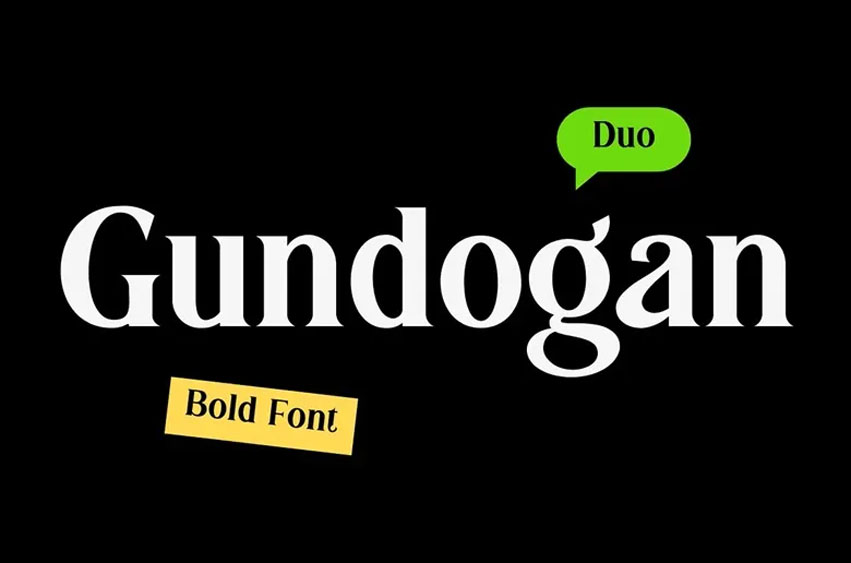
Gundogan Font
Gundogan Font is a bold serif typeface designed to offer a confident, strong and professional appeal. Its broad structure, unique letterforms and sharp details gives it a strong visual impact making it well suited for posters, logos, branding and corporate identity, book and magazine covers, product packaging and more.
The sharp serif build and well organised letterforms gives it a premium look while retaining great readability. This makes Gundogan a perfect choice for crafts that need to display clarity, authority and a polished visual identity.